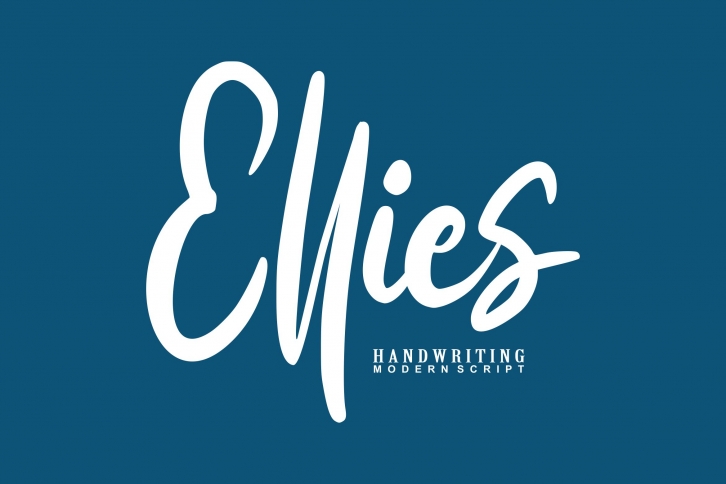
Ellies is a beautiful font that was designed by Vunira. It's a great choice for designers and creatives who need such a font. It was released on January 16, 2020 and the file size is 18.29 MB. Ellies may give a more youthful, expressive and casual look to your project. It is a very beautiful, refined, elegant, and high-quality font.